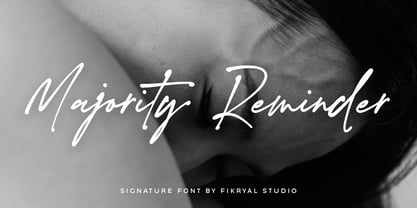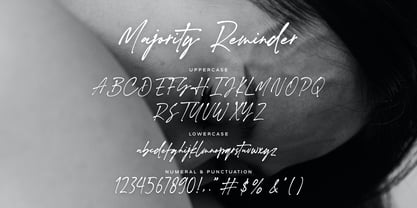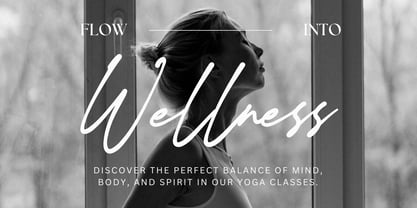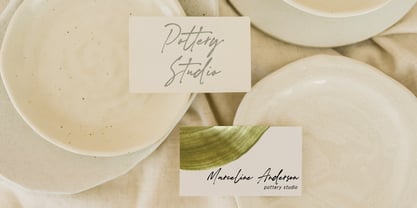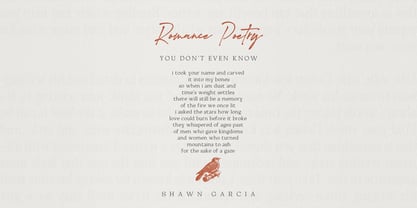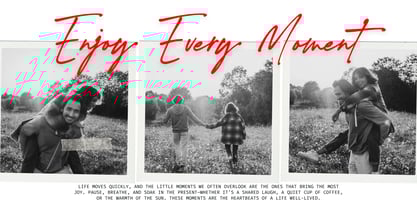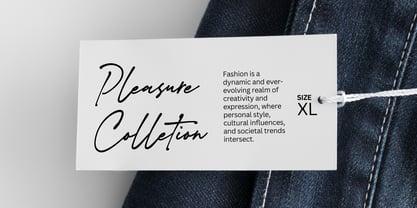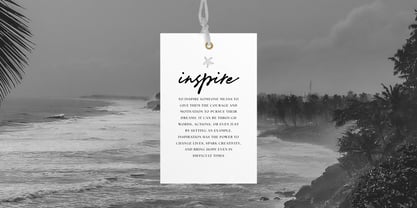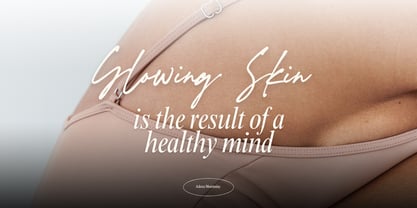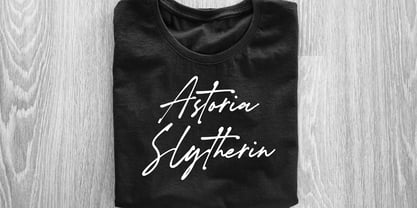
Majority Reminder
by Fikryal
The Majority Reminder Font Family was designed by Muhammad Fikry and published by Fikryal. Majority Reminder contains 1 styles.
Majority Reminder is a signature script font that captures the essence of natural handwriting — stylish, smooth, and effortlessly elegant. Designed for those who value sophistication, it’s perfect for projects that need a personal yet luxurious touch. Perfect for: Logo & Branding Photography & Studio Signatures Wedding Invitations & Stationery Beauty & Fashion Product Packaging Quote Designs, Blogs, and Magazines Thank you